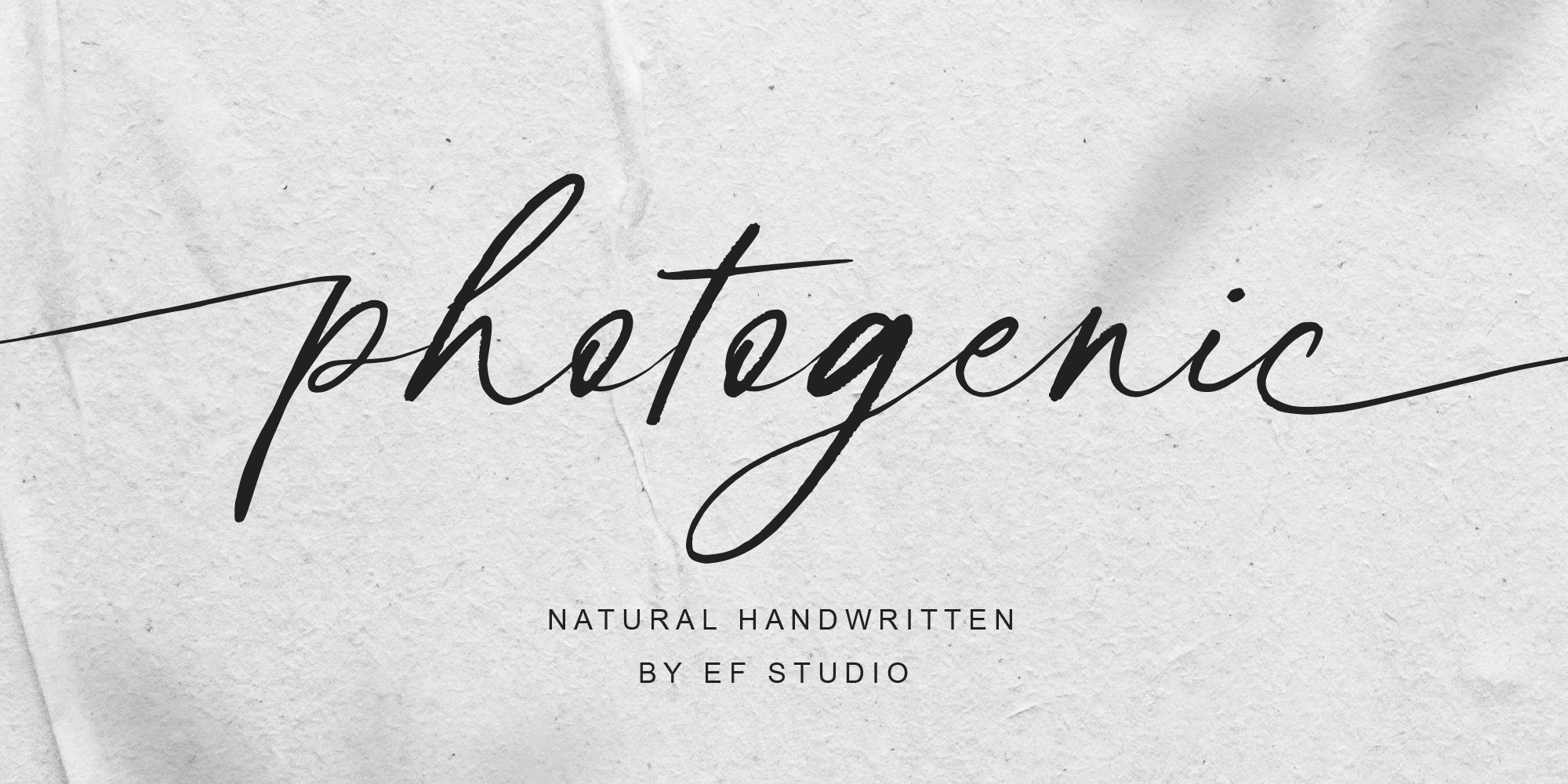
Photogenic Font is excellent for photography studio branding, social media graphics, influencer marketing campaigns, beauty salon signage, fashion photography projects, portrait session promotions, camera equipment packaging, photo editing software interfaces, modeling agency communications, and visual storytelling applications.
What makes Photogenic Font exciting is its picture-perfect elegance that perfectly captures the visual appeal and camera-ready sophistication found in professional photography and social media excellence. This typeface features polished letterforms with lens-sharp proportions and picture-perfect details that evoke the flawless composition and aesthetic excellence of professional photography work. The font's camera-ready personality and visual authenticity make it ideal for creative brands seeking to convey beauty, visual excellence, and the captivating appeal that comes from mastering the art of visual storytelling and photographic perfection.
Photogenic Font family includes picture-perfect weight variations and camera-ready alternatives that enhance its visual appeal while providing design flexibility for photography and creative applications. The font features lens-sharp ligatures, camera-inspired ornaments, and picture-perfect character variations that create authentic photography atmosphere for visual and creative branding.
Photography studios and visual creative agencies consistently choose Photogenic Font Free Download for projects requiring authentic visual appeal and photography credibility. The font's picture-perfect character excels in applications targeting photographers, content creators, and visual artists who appreciate genuine aesthetic excellence and camera-ready quality. Whether you're designing for photography services, visual content platforms, or beauty brands, this stunning typeface delivers the photographic authenticity and visual excellence that resonates with audiences seeking genuine beauty and the camera-ready perfection that defines professional photography and visual storytelling mastery.